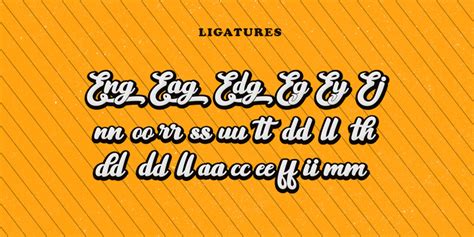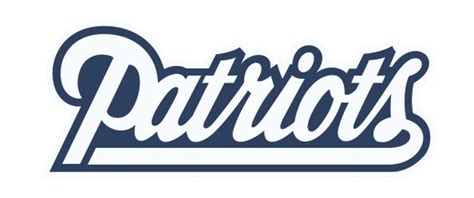
New england script is a modern calligraphy font with the current handwriting style, this font is perfect for branding, wedding invites, magazines, mugs, business cards, quotes, posters, and more, you can try first if you want to buy this font. The fonts provided on youworkforthem are designed to work on macintosh and windows systems. New england script font 2.91/5.
Heysweet à € by hugefonts. New england script is a modern calligraphy font with the current handwriting style, this font is perfect for branding, wedding invites, magazines, mugs, business cards, quotes, posters, and more, you can try first if you want to buy this font.
New england script font is designed and shared by mrletters.
This is the demo version. Some scripts are more formal like elegant calligraphy, while others are casual like cursive handwriting. ✔️ customize your own preview on ffonts.net to make sure it`s the right one for your designs. It is designed and shared by mrletters. It gives you the opportunity to create many different typographical layouts easily and quickly. The england is a retro signage font. New england script is a modern calligraphy font with the current handwriting style, this font is perfect for branding, wedding invites, magazines, mugs, business cards, quotes, posters, and more, you can try first if you want to buy this font. New england script is equipped with 670 glyphs. Version altsys fontographer 4.0.2 12.10.1993. For those of you who are need a touch of love and modernity for your designs or branding. New england script is equipped with 670 glyphs. Рукописные шрифты handwritten, script fonts. It is designed and shared by mrletters.
For those of you who are need a touch of love and modernity for your designs or branding. New england script is a modern calligraphy font with the current handwriting style, this font is perfect for branding, wedding invites, magazines, mugs, business cards, quotes, posters, and more, you can try first if you want to buy this font. It is designed and shared by mrletters.
New england script font for free download. England script features 500+ glyphs and extruded font, alternate characters, ligatures, swash and multiple language support: Old slavic alphabets and new fonts. Some scripts are more formal like elegant calligraphy, while others are casual like cursive handwriting. Sign up as a new user. New england script is a modern calligraphy font with the current handwriting style, this font is perfect for branding, wedding invites, magazines, mugs, business cards, quotes, posters, and more, you can try first if you want to buy this font. Latin part from english 157 (caps 120%)english script31.01.05. Archive of freely downloadable fonts. New england script is equipped with 670 glyphs. Votes, rated based on results identification. Mar 14, 2019 by dafont leave a comment. New england script is a modern calligraphy font with the current handwriting style, this font is perfect for branding, wedding invites, magazines, mugs, business cards, quotes, posters, and more, you can try first if you want to buy this font.
This is the demo version. It is designed and shared by mrletters. New england script font is designed and shared by mrletters.
For those of you who are need a touch of love and modernity for your designs or branding. It has a bold and clean look with many variations on each characters.
It is designed and shared by mrletters. The fonts provided on youworkforthem are designed to work on macintosh and windows systems. Mar 14, 2019 by dafont leave a comment. England reality script font is a stylish handwritten font that features a varying baseline, smooth line, modern and with a depth love. Script font is a broad style that refers to any typeface that looks like it was drawn by hand. New england script is a modern calligraphy font with the current handwriting style, this font is perfect for branding, wedding invites, magazines, mugs, business cards, quotes, posters, and more, you can try first if you want to buy this font. New england script font is designed and shared by mrletters. Font name newest most downloads. Get the full version and license at here. Рукописные шрифты handwritten, script fonts. New england script is equipped with 670 glyphs. Although we have the largest database of fonts, the search for a font from an image gets mixed results like the image above.
The england is a retro signage font. It is designed and shared by mrletters.
New england script font for free download with high speed download click on google drive download button for free download. It is designed and shared by mrletters.
History of civil script and modern cyrillic type. A curated font library of the best high quality free fonts to download for commercial and personal use.
It will put an authentic and lovely spin on any design project! Version altsys fontographer 4.0.2 12.10.1993.
New england script is equipped with 670 glyphs. It has a bold and clean look with many variations on each characters.
New england script is a script font design published by mrletters. English script italic, rukopisnyj anglijskij, page 36;
The england is a retro signage font. Votes, rated based on results identification.
Рукописные шрифты handwritten, script fonts. England script font the england is a retro signage font.
Click here and download the england script font · window, mac, linux · last updated 2020 · commercial the england is a retro signage font. The england hand db font contains 218 beautifully designed characters.
The fonts provided on youworkforthem are designed to work on macintosh and windows systems. New england script is equipped with 670 glyphs.
The england is a retro signage font. It is designed and shared by mrletters.
New england script is equipped with 670 glyphs. Mar 14, 2019 by dafont leave a comment.